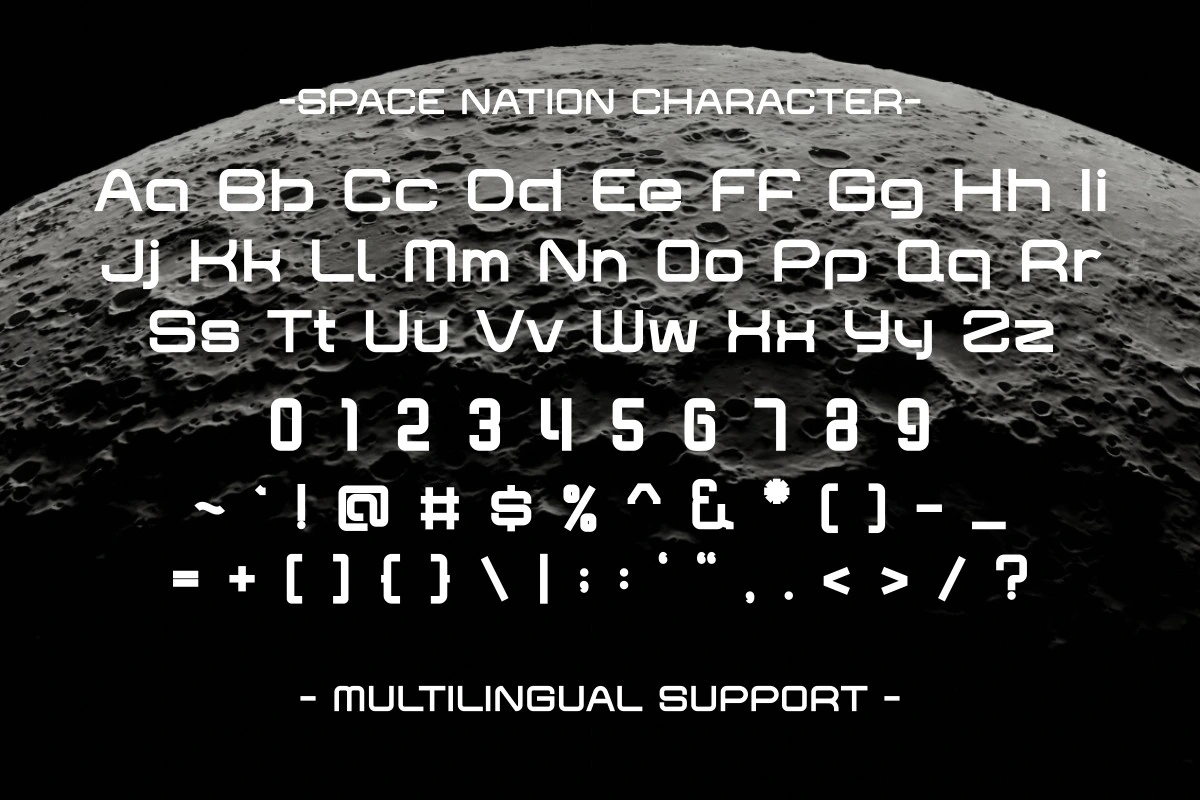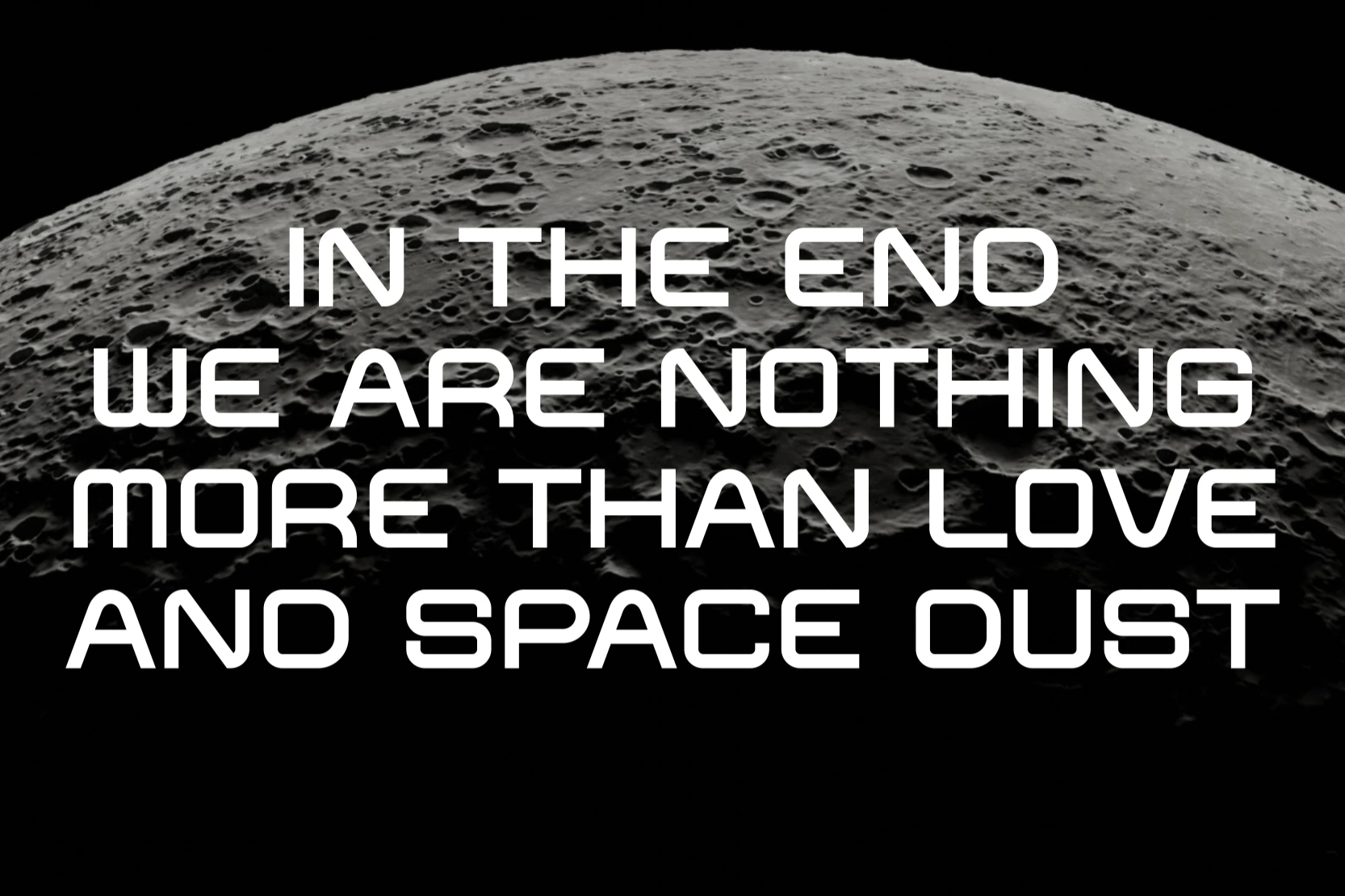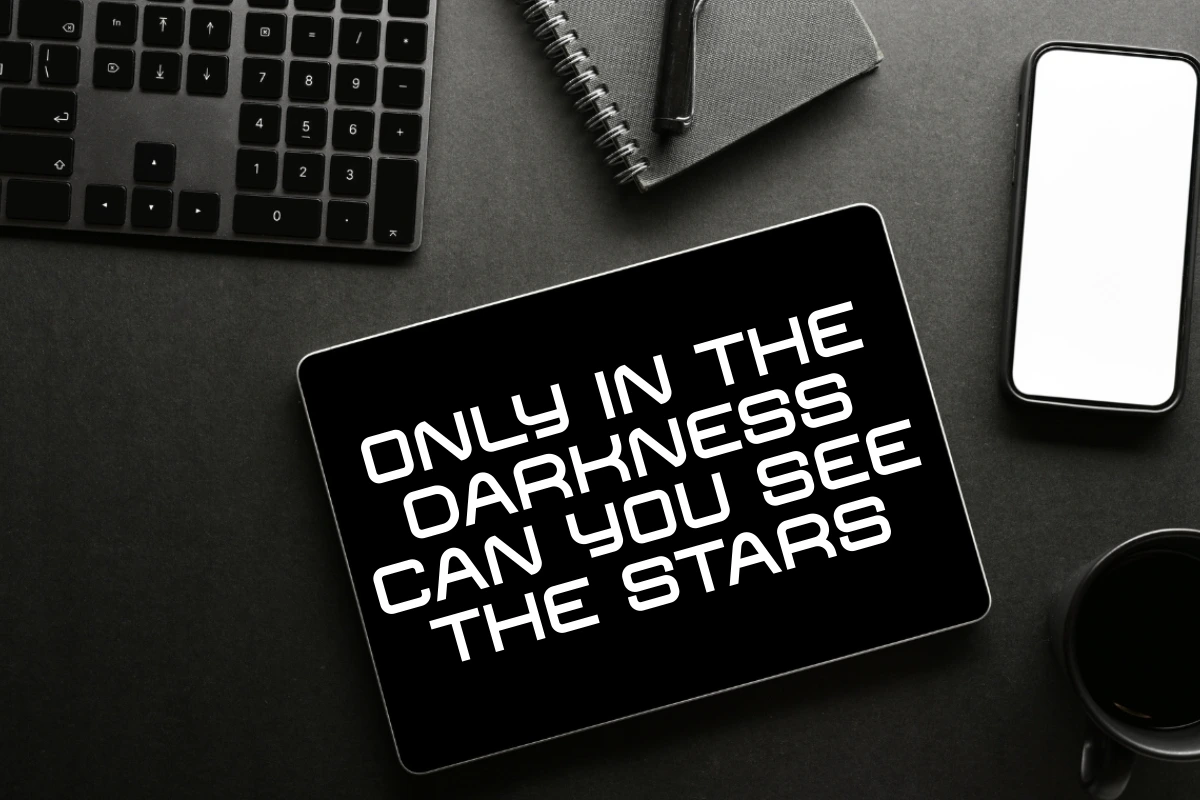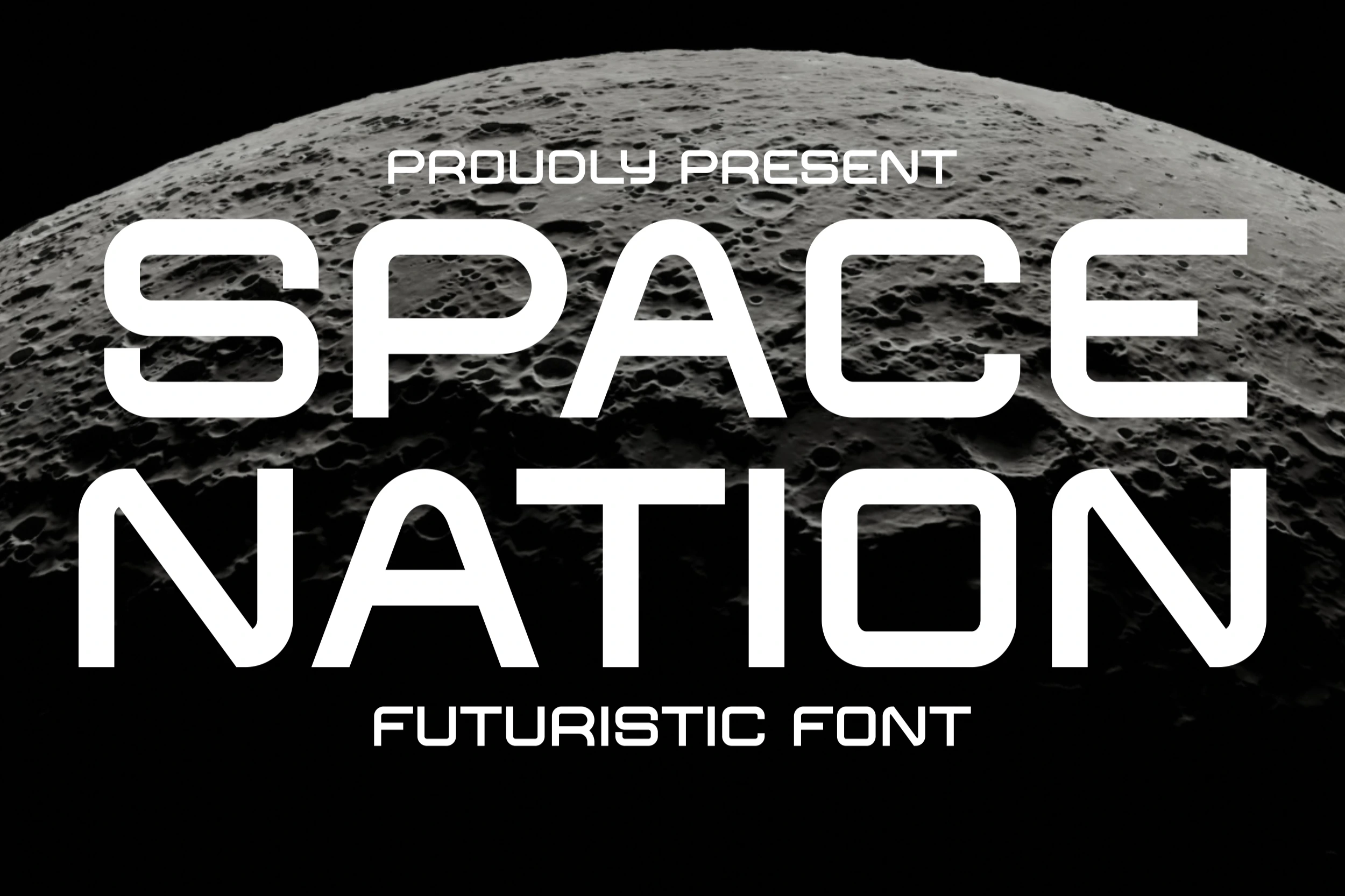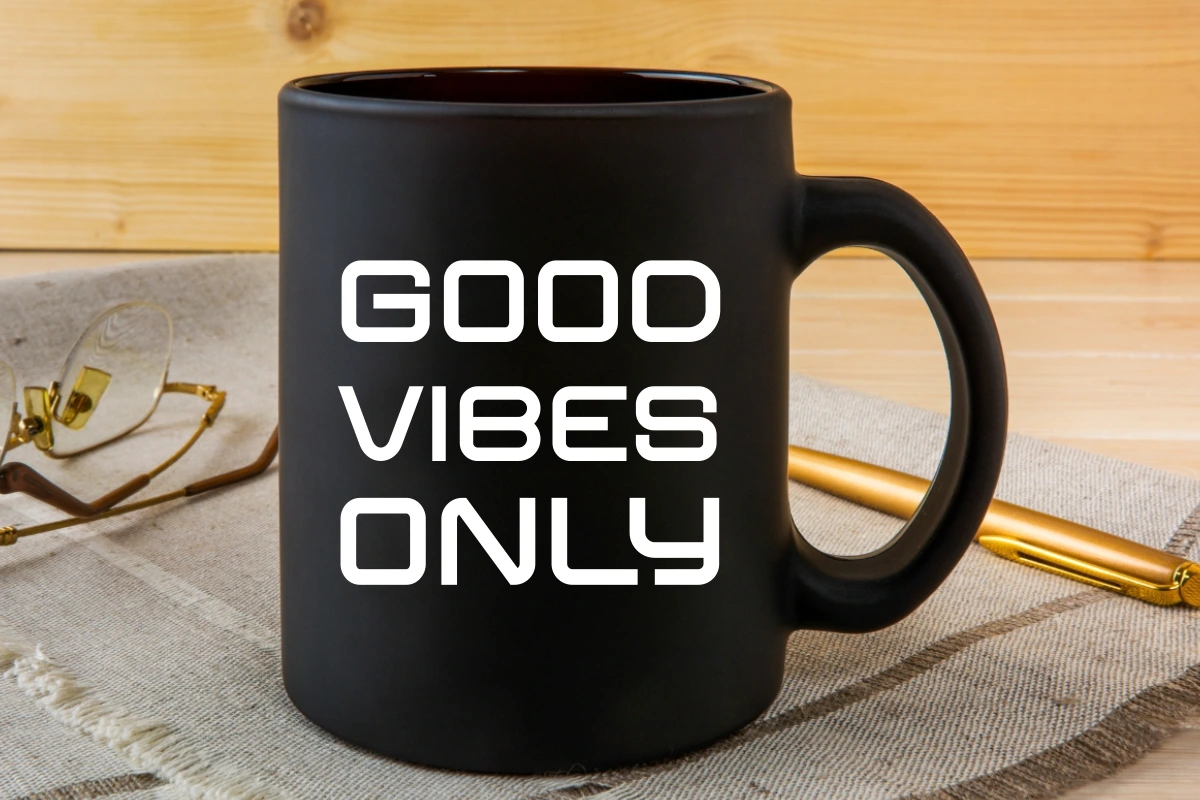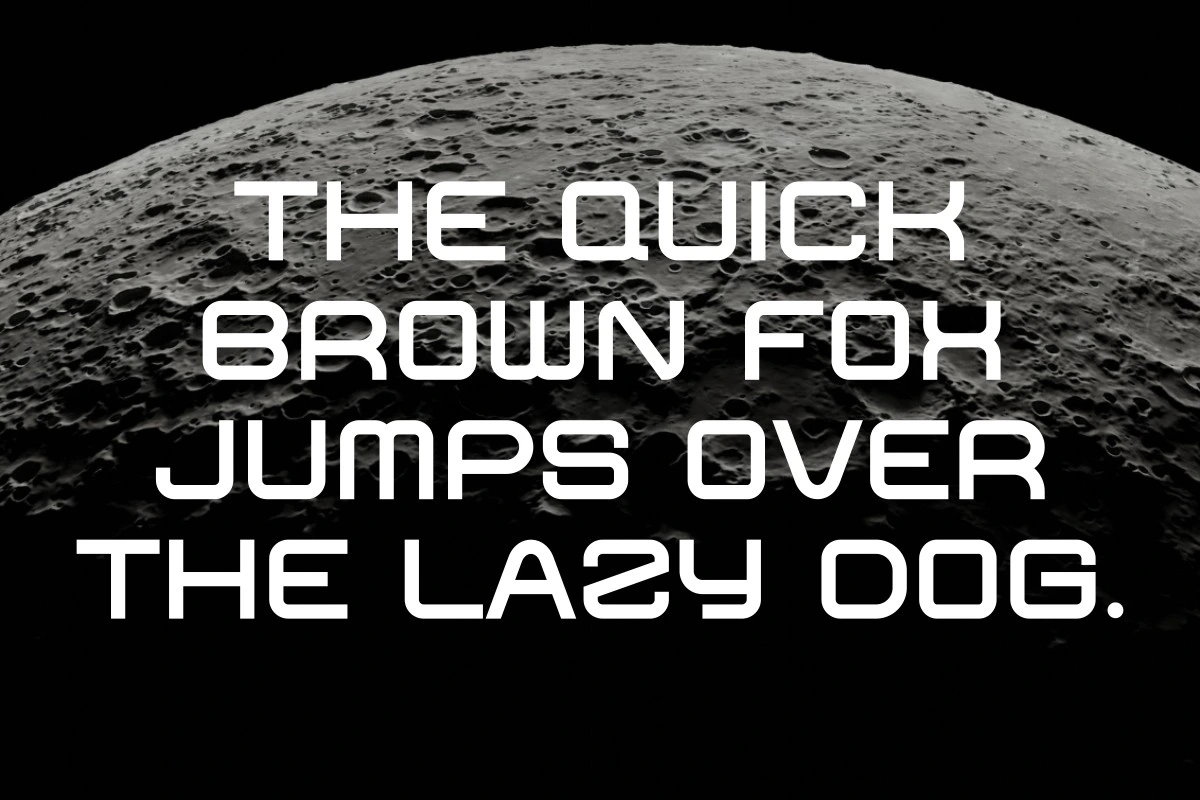
Space Nation - Futuristic Font
Space Nation is a bold and striking futuristic display font designed to evoke the sleek, high-tech aesthetic of science fiction and space exploration. Its clean, wide, and all-caps letterforms feature distinct geometric cuts and subtle angularity, giving it a modern and authoritative presence. Perfect for gaming titles, technology branding, movie posters, sci-fi book covers, and any design requiring a cutting-edge, minimalist, and forward-thinking look. Space Nation projects power and innovation, making it ideal for commanding attention in digital and print media.